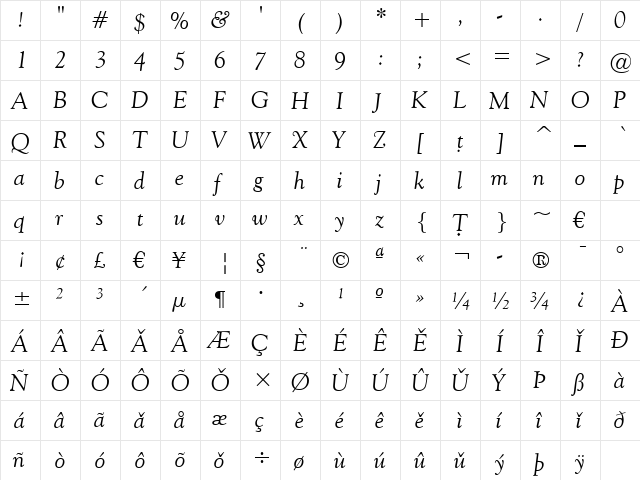
VANIEL 2 Italic
Design Context for VANIEL 2 Typeface
VANIEL 2 takes a measured approach to typography — its balanced proportions and neutral character make it a reliable workhorse for both digital and print work. The dynamic lean of this cut emphasises speed and emphasis in any layout.
Pro Tip: Use VANIEL 2 for emphasis, pull quotes, and subheadings where its slanted energy can add rhythm to the layout.